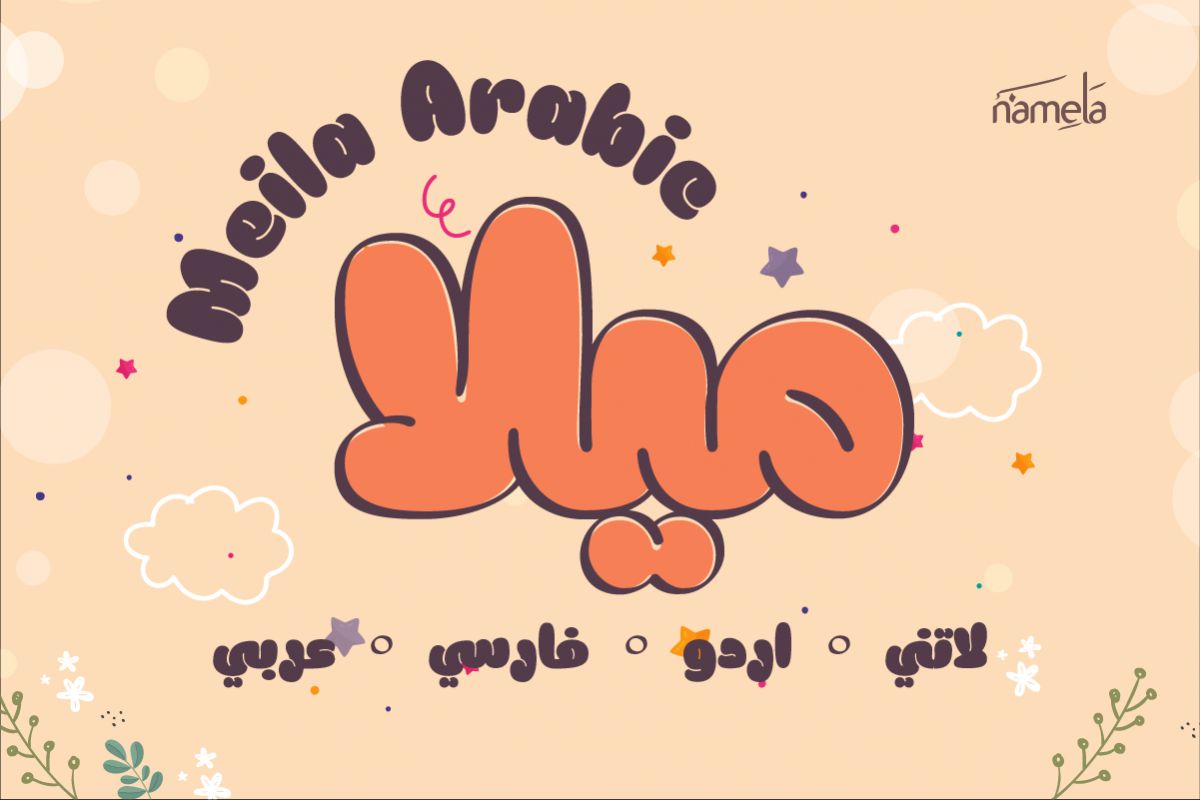
Meila Arabic Stroke Light
Meila Arabic Font - A Fun Bubble-Style Arabic Typeface for Social Media & Apps Finding an Arabic typeface that truly feels fun, friendly, and made for children is more difficult than it should be. Many Arabic display fonts lean toward formal or calligraphic styles—beautiful, but not always suited for playful contexts. Meila Arabic fills that gap with a rounded, bubble-style Arabic font designed for social media, apps, kids’ branding, and any Arabic-language design that needs to communicate war